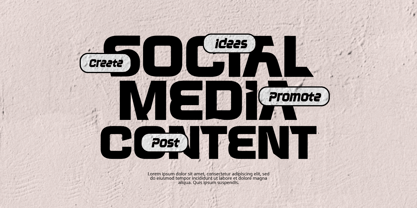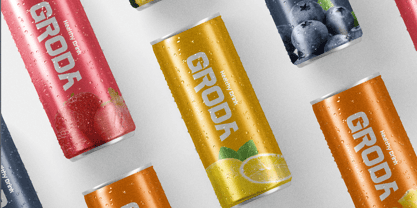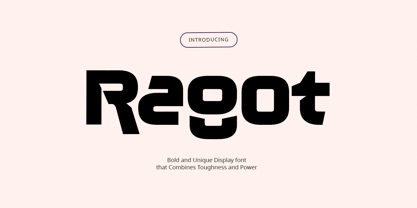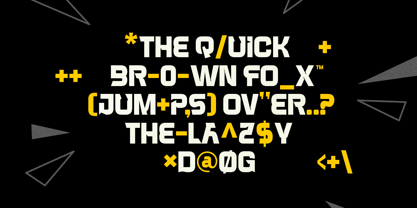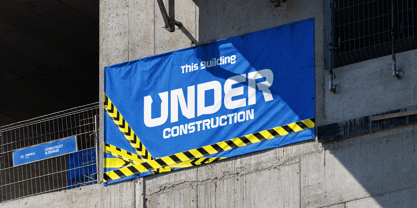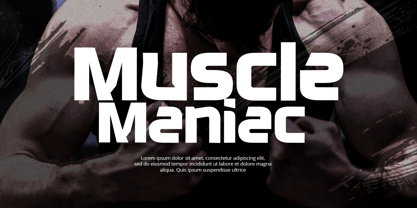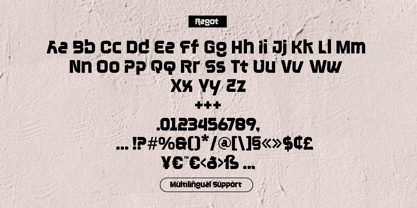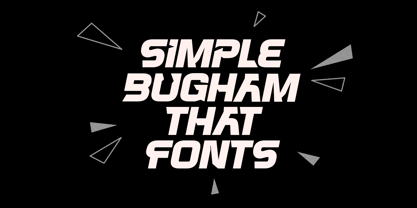
Ragot
von Grontype
Die Schriftfamilie Ragot wurde von Jarnawi Saja entworfen und von Grontype veröffentlicht. Ragot enthält 2 Stile und Familienpaketoptionen. Mehr über diese Familie
Ragot is a bold and unique display font with a strong, tough, and masculine character. Designed to make a powerful visual statement, Ragot features both uppercase and lowercase glyphs that enhance its versatility while maintaining a solid presence. This font is perfect for headers, logotypes, and any design that needs an impactful and confident look.
Designer: Jarnawi Saja
Foundry: Grontype